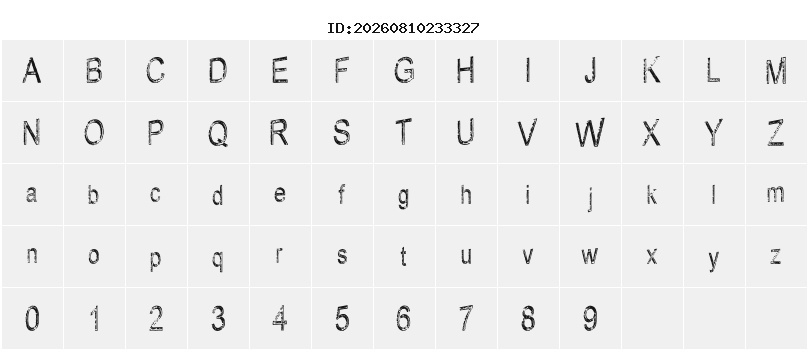
Rusty Sign Preview
• Font Name: Rusty Sign
• Full Font Name: Rusty Sign
About Rusty Sign.ttf
Rusty Sign.ttf is a modern, elegant sans-serif font designed for ultimate readability and visual harmony. Perfect for branding, headlines, web design, and print materials.